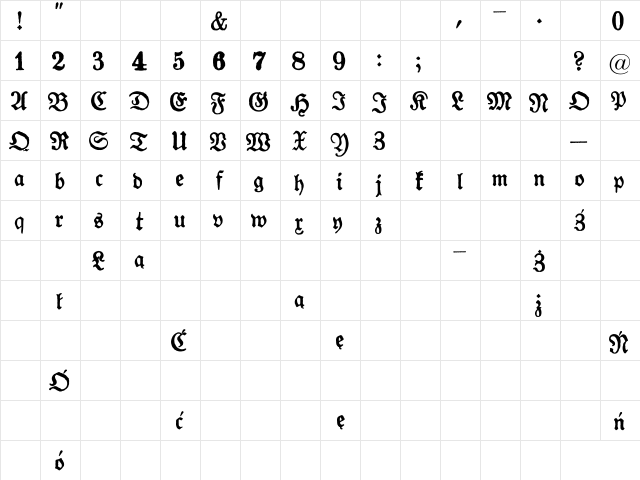
Gotyk Poszarpany Regular
| Designer | bartek nowak |
Design Context for Gotyk Poszarpany Typeface
Gotyk Poszarpany is a composed and adaptable typeface that performs quietly and consistently across a wide range of design contexts.